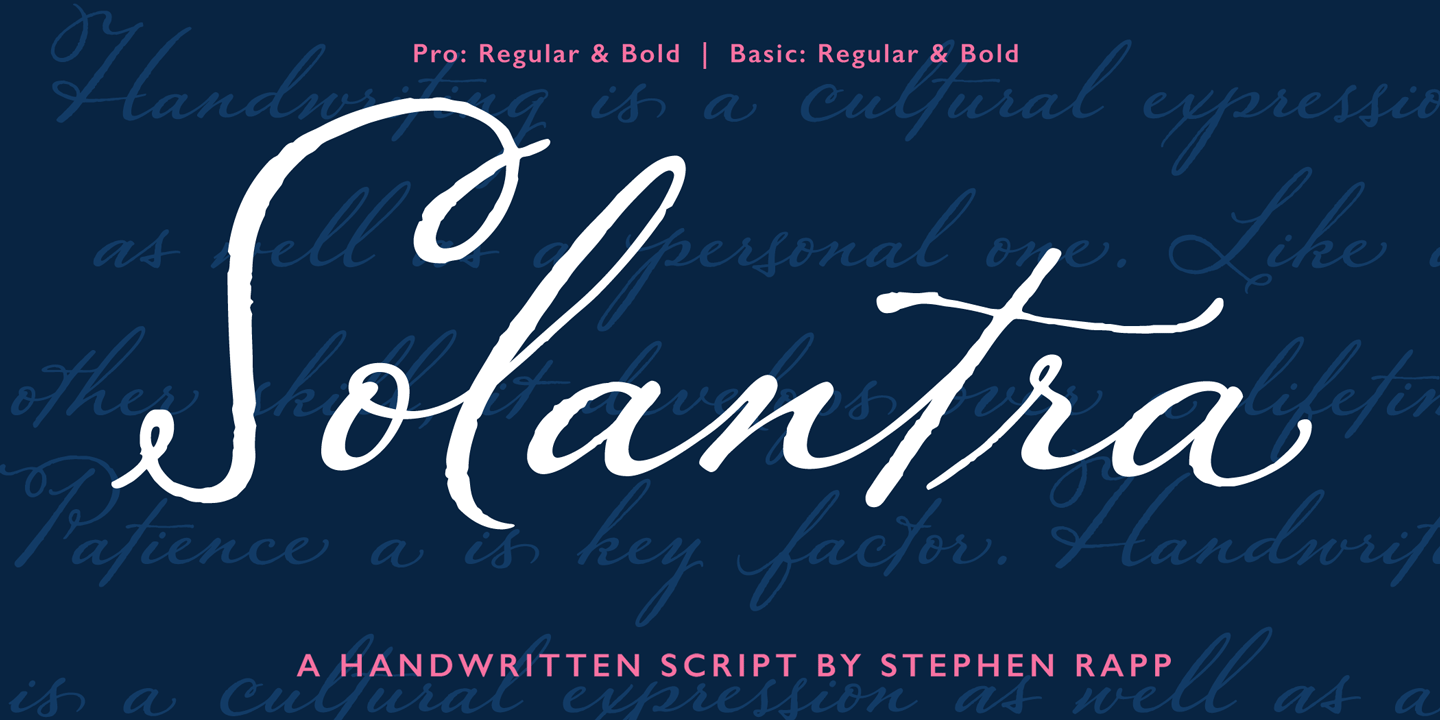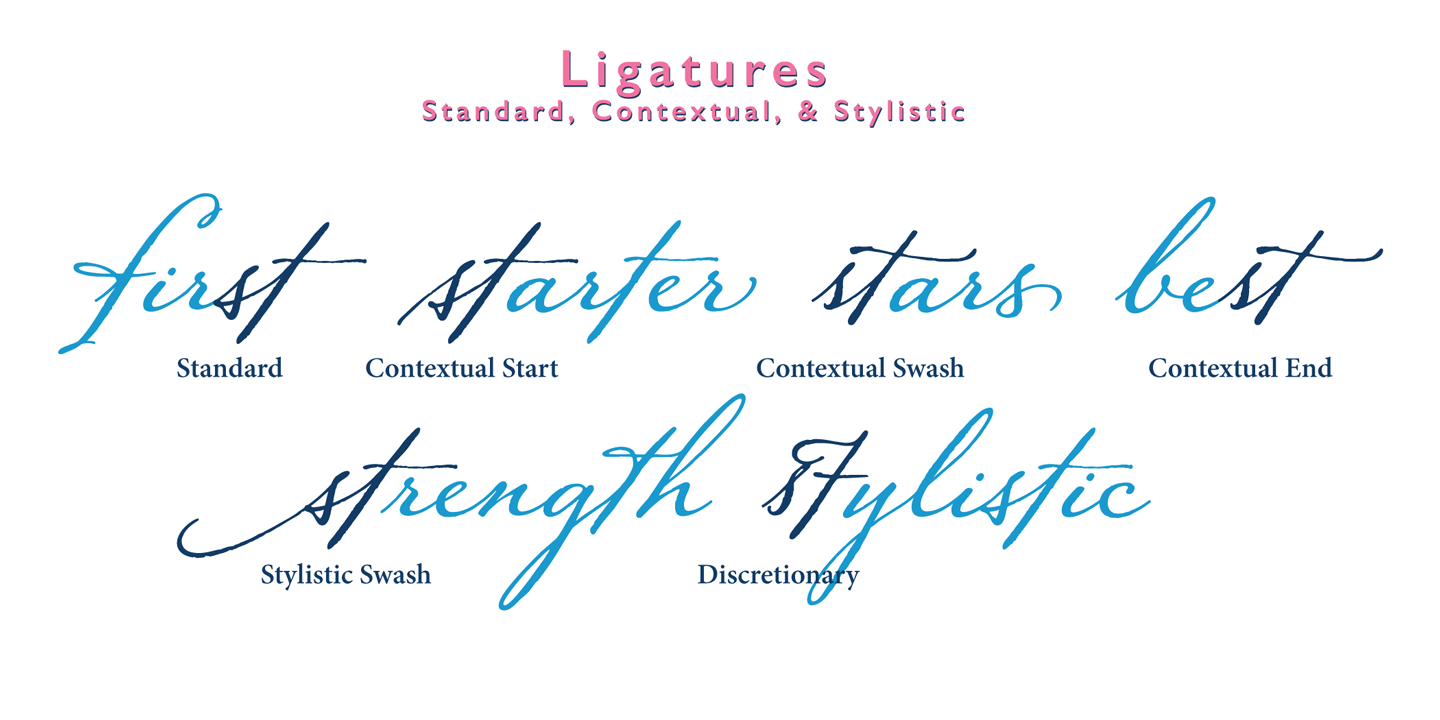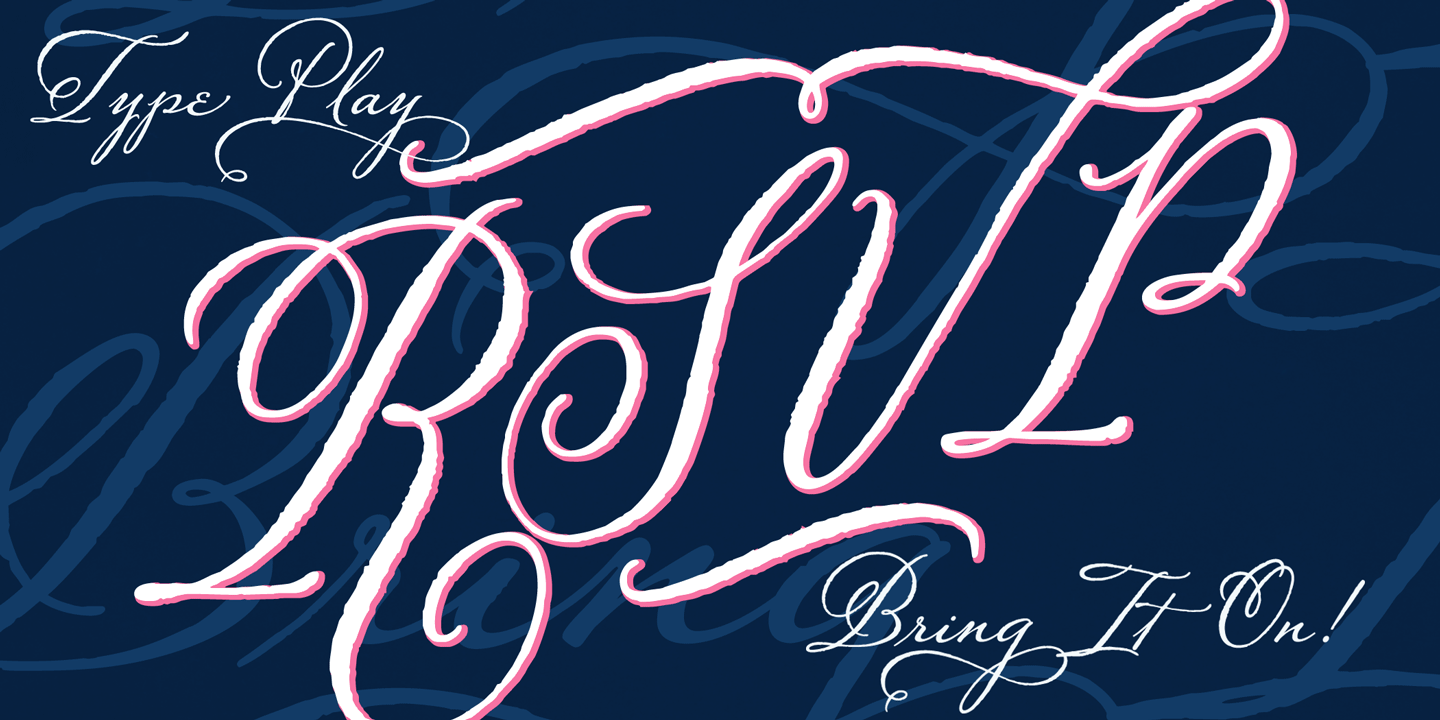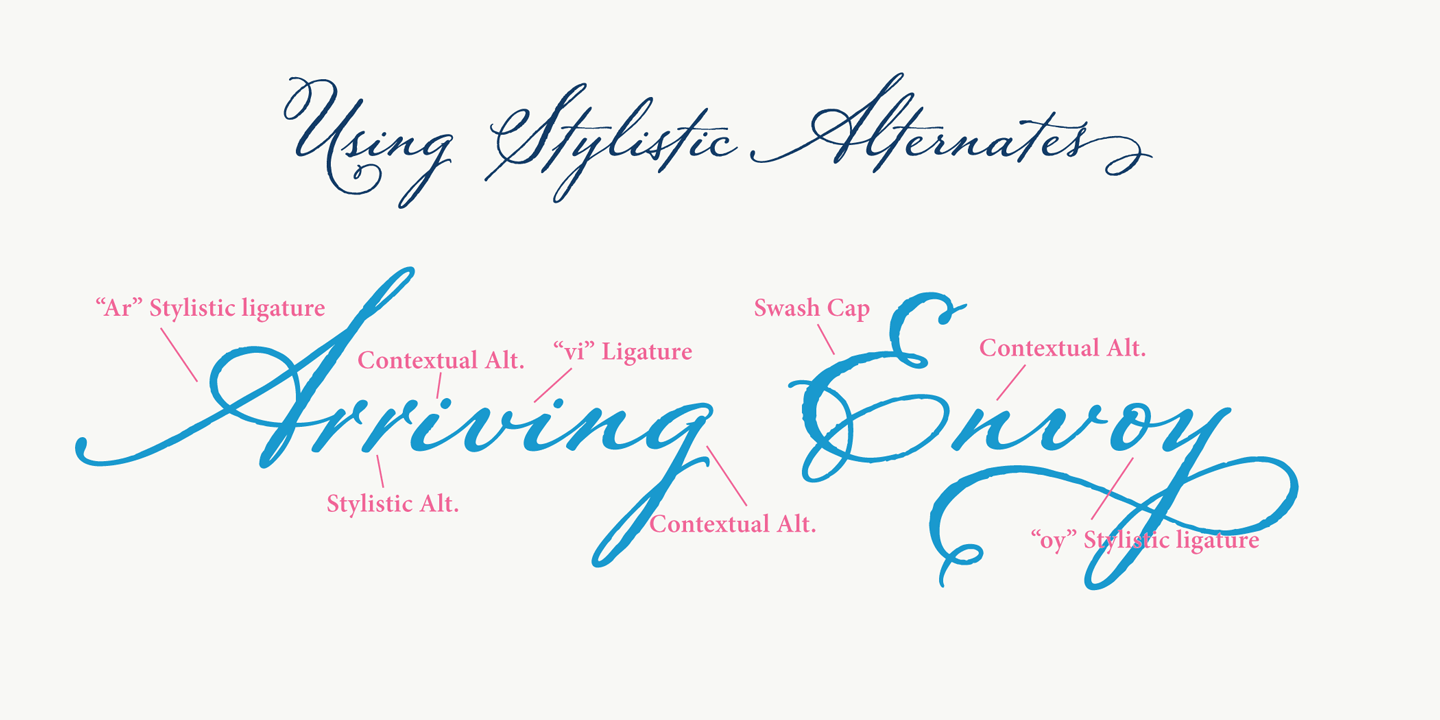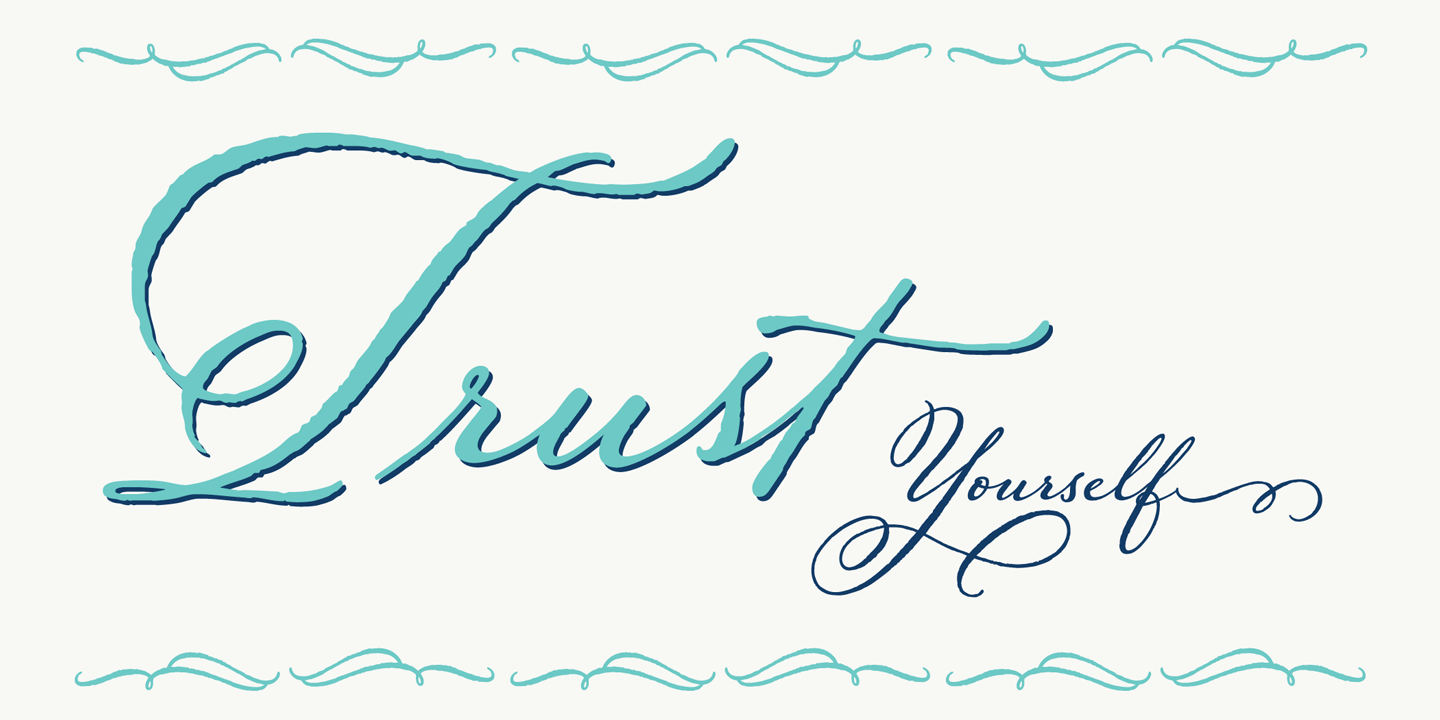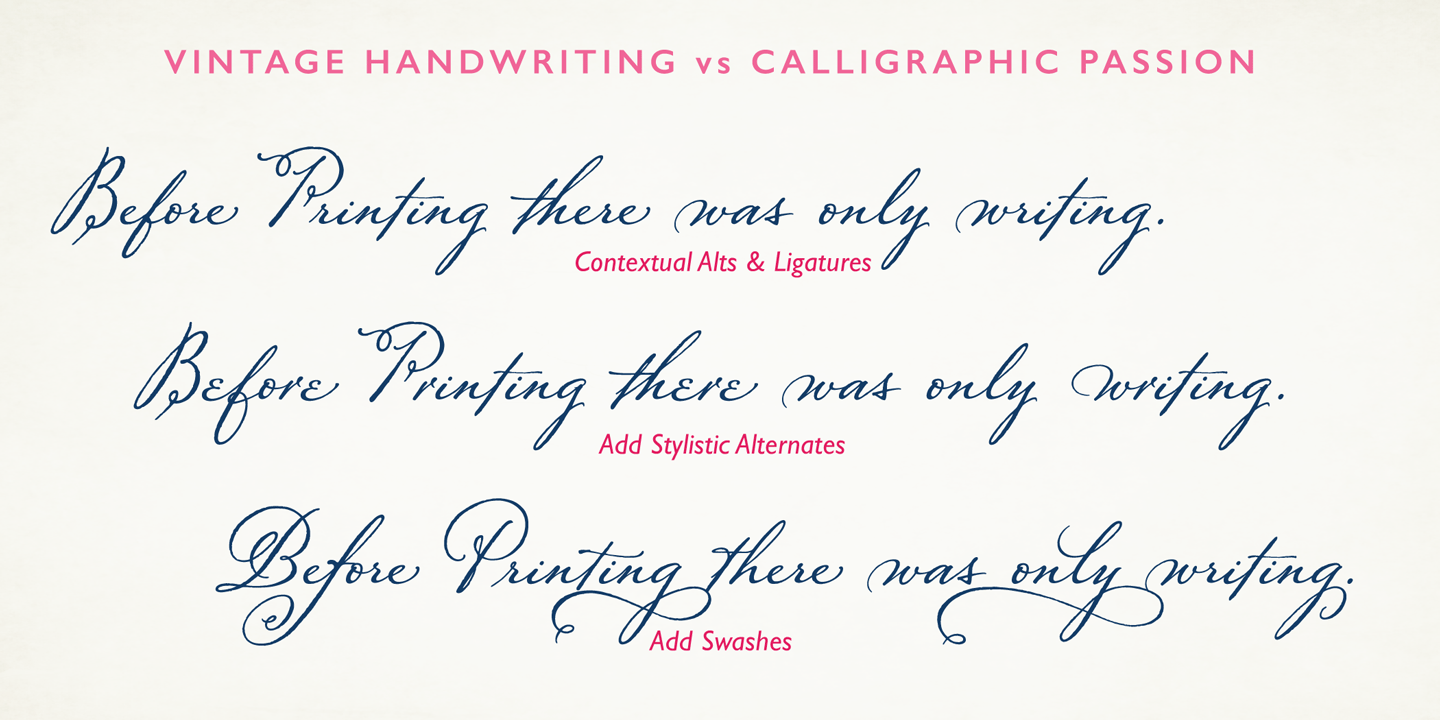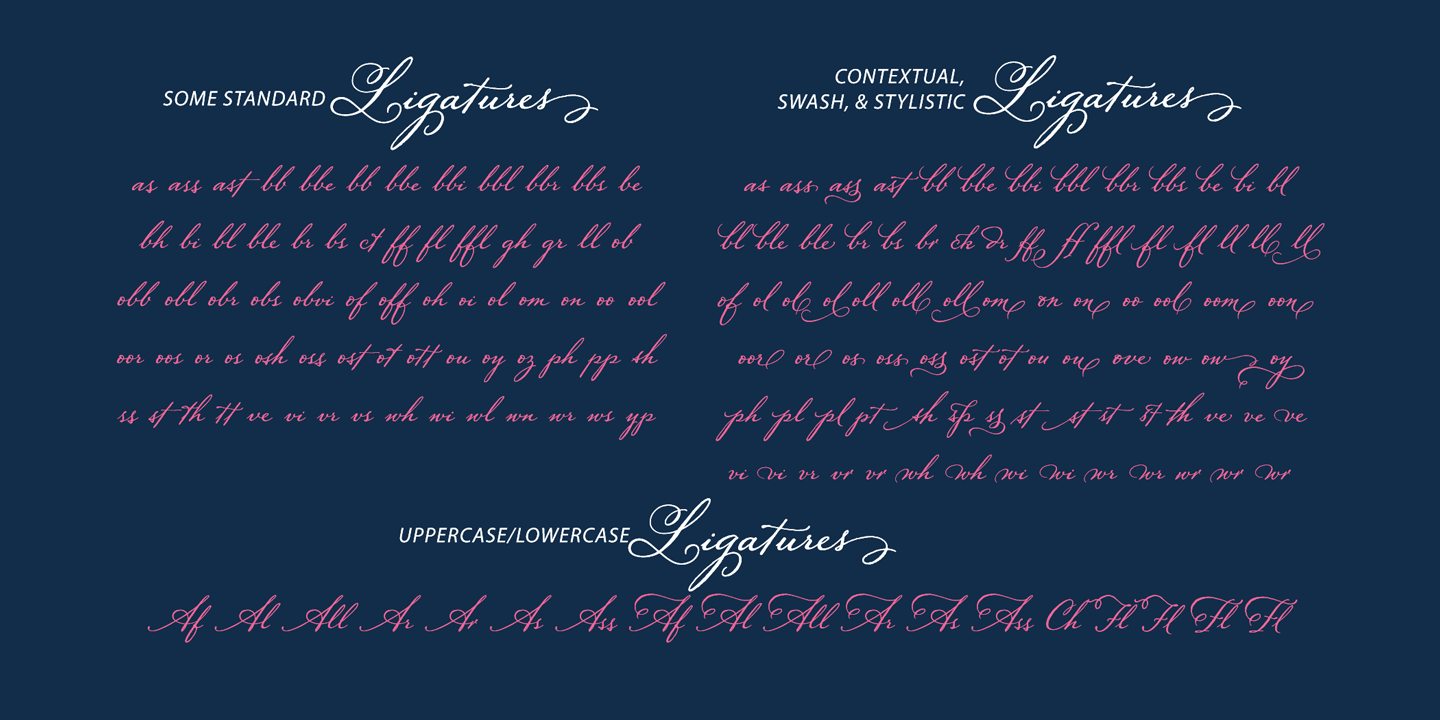
Solantro takes into account how scripts are actually written so that connections from letter to letter are more fluid and rhythmic than the average script font. In natural script/handwriting most letters end at the bottom right and move up to connect with the next. Some letters like o, v, and w, however; end at the top right. Rather than force these letters to dip down and go back up they should ideally connect from that upper right point. This is accomplished through a series of alternate letters and ligatures with extensive contextual feature programming. So, for example, you might get one version of a ligature in the middle of a word and a different one at the beginning or end of that word. Solantra also takes into account another often overlooked feature of natural handwriting. When you write you inevitably pick your pen up from the paper at times. This is often just to reposition the hand, but in the days of writing with dip pens this was also needed to attain a fresh supply of ink. Having these occasional breaks in connections makes the writing less static and more rhythmic.
While the Basic versions are limited to a standard character set and several ligatures and alternates for better settings of text, the full pro versions contains 1292 glyphs and an abundance of features. Even with numbers there are options like Oldstyle numbers, fractions, and ordinals. Central European language support is included as well as some select ligatures that use accents. To see more on the technical aspects and instructions on using Solantra, please check out the user’s guide in the Gallery section.